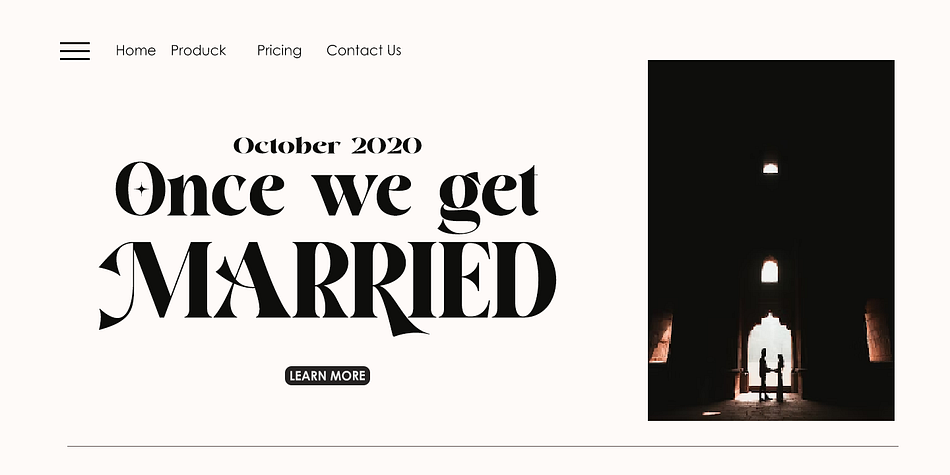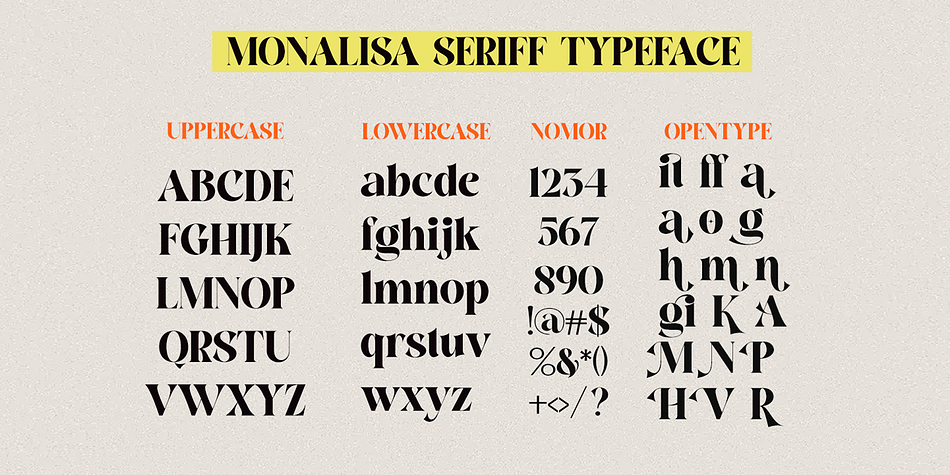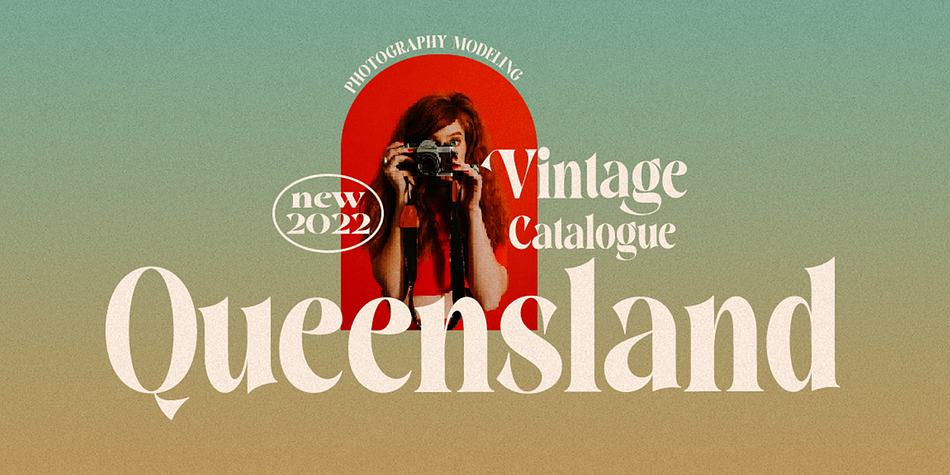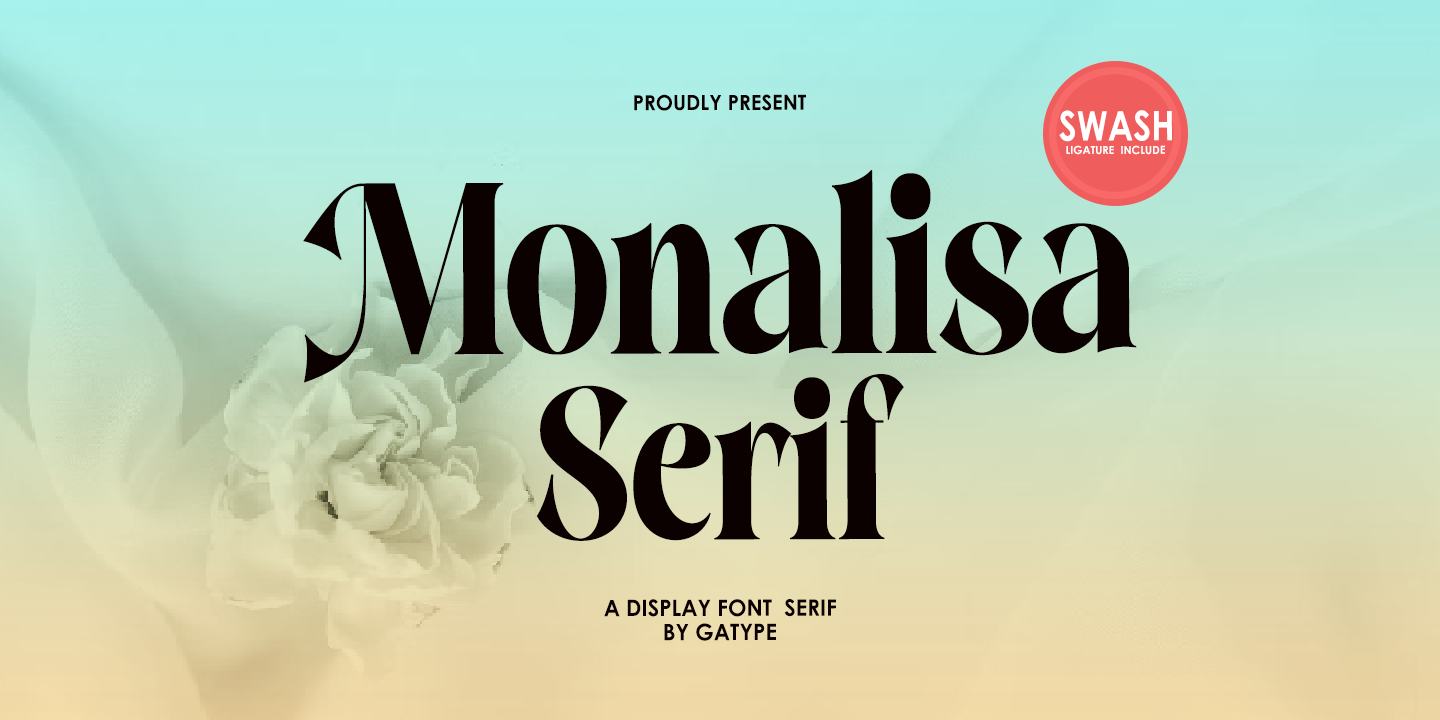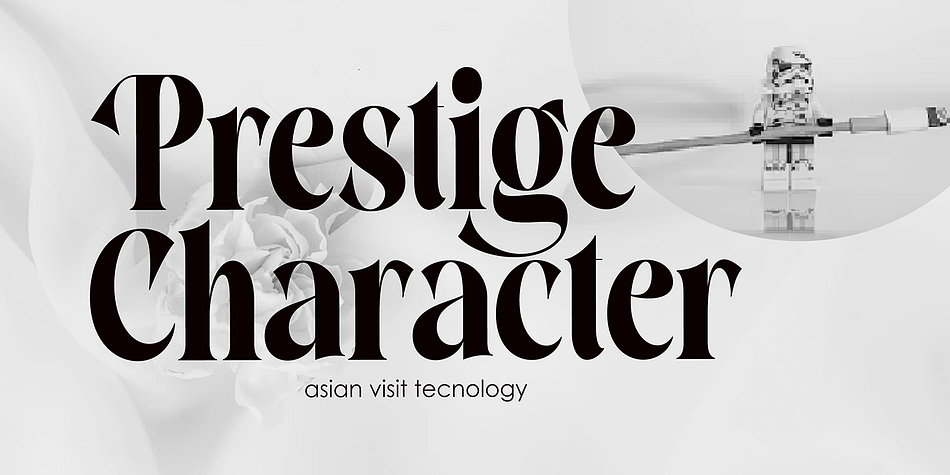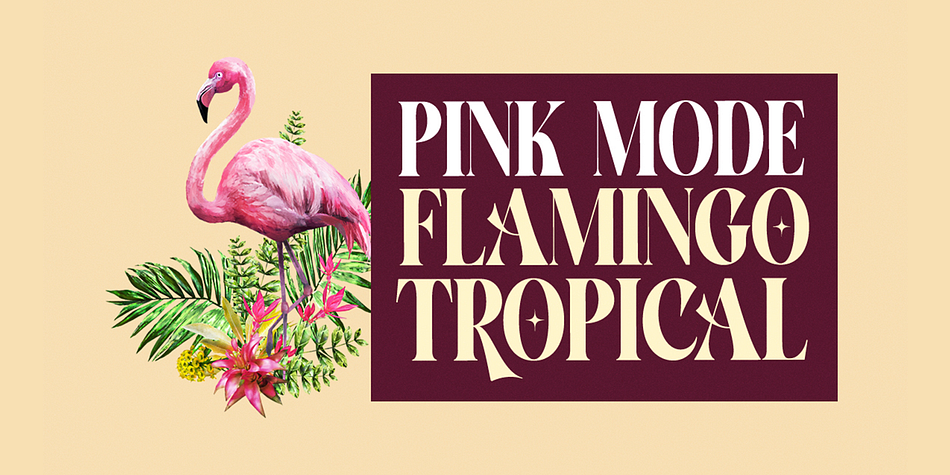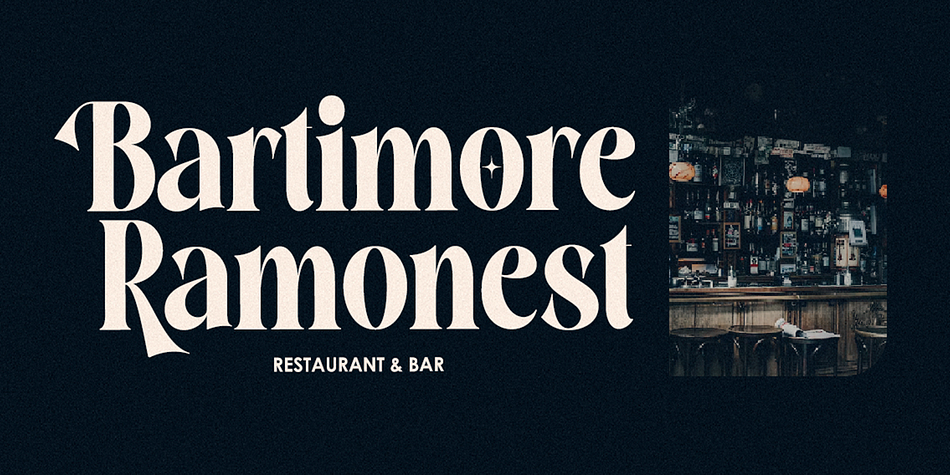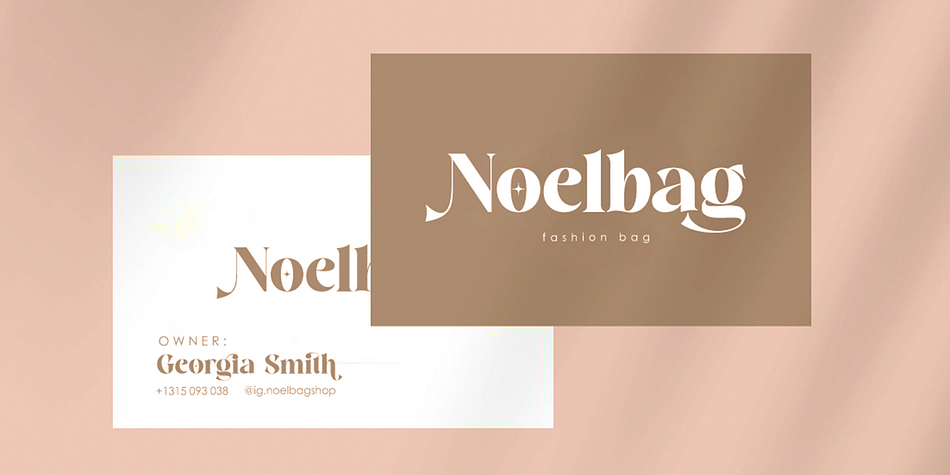
Monalisa Serif
Monalisa Serif is a display serif and retro font family published by Gatype.
Monalisa Serif Typeface font is an elegant serif typeface with subtle details. This neat font can add modern and fashionable brand appeal. This versatile display typeface has enough character for logos and branding, as well as headlines, apparel, bridal and more. Keep it classic, or decorate it with ornate alternatives to uppercase and lowercase glyphs!